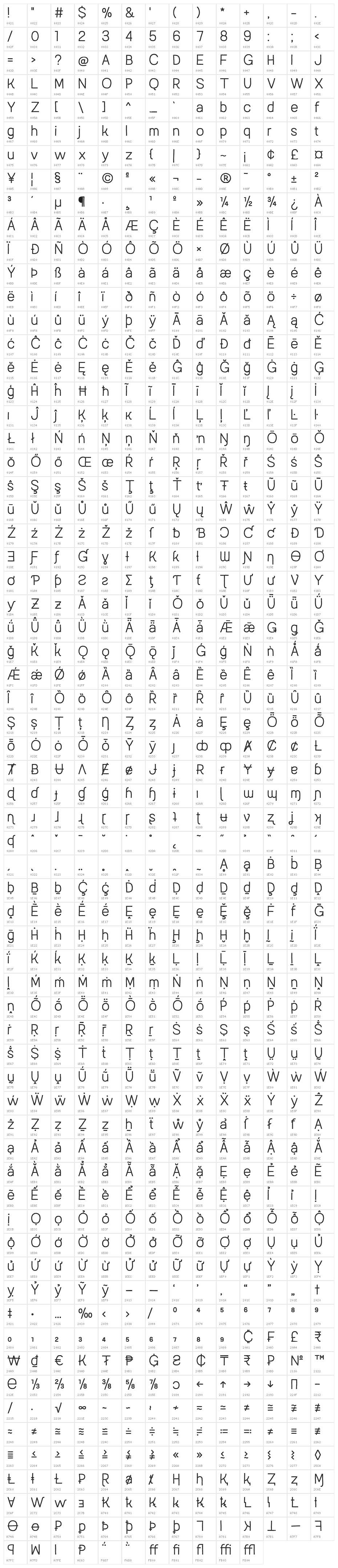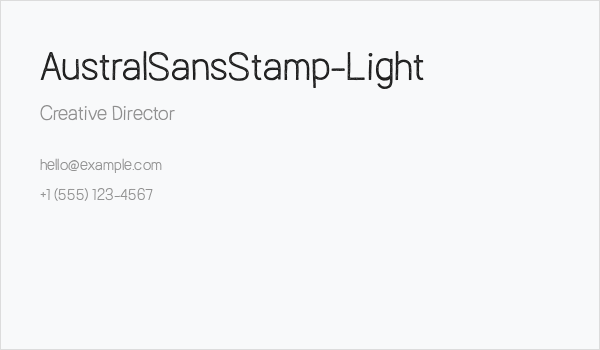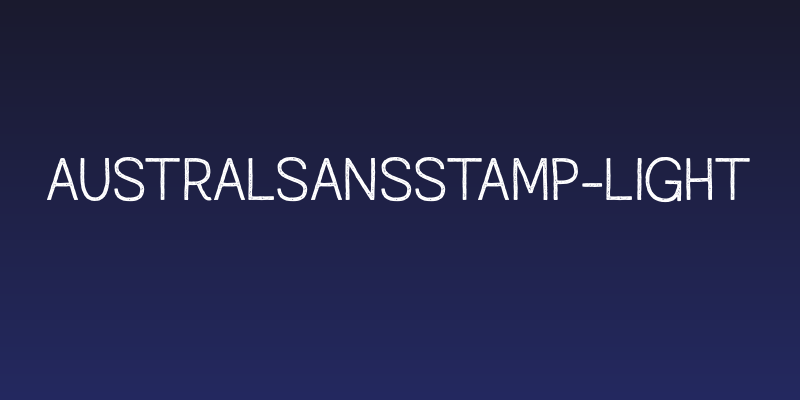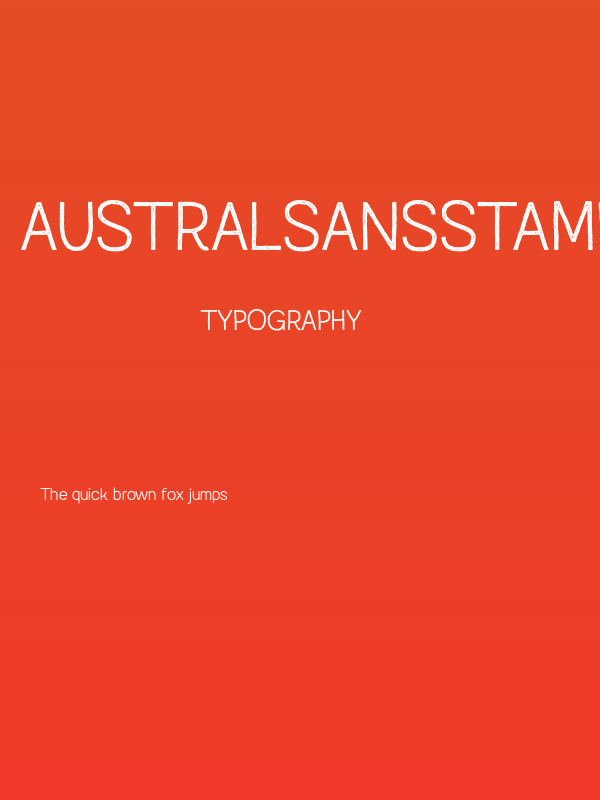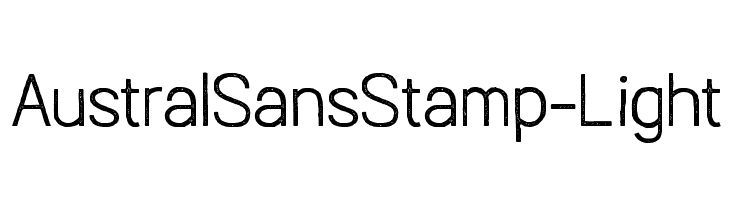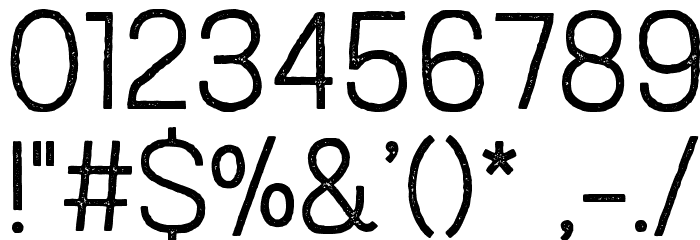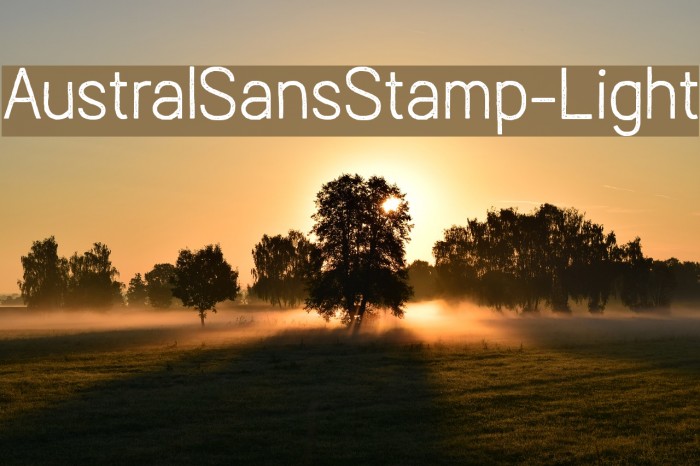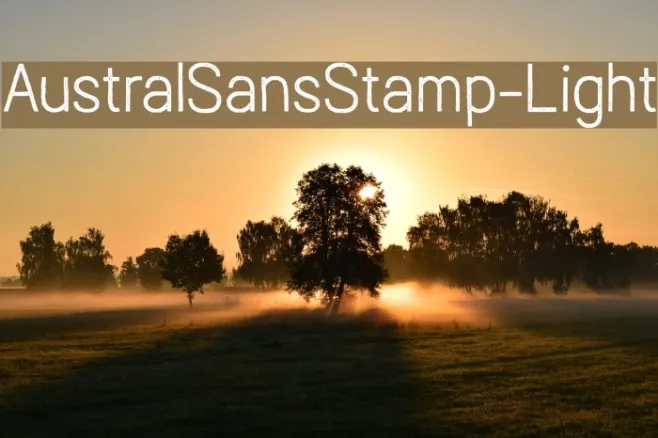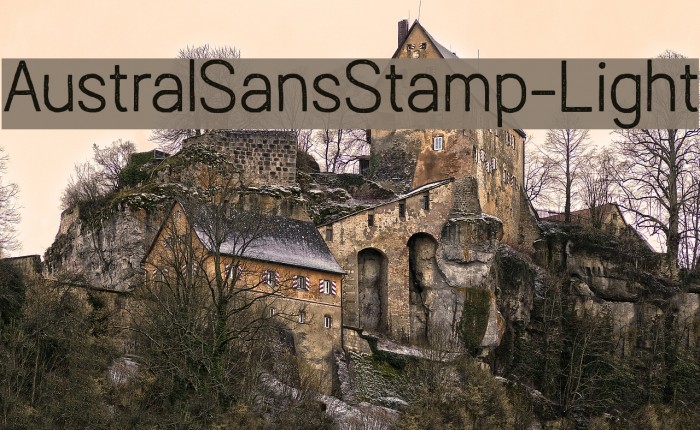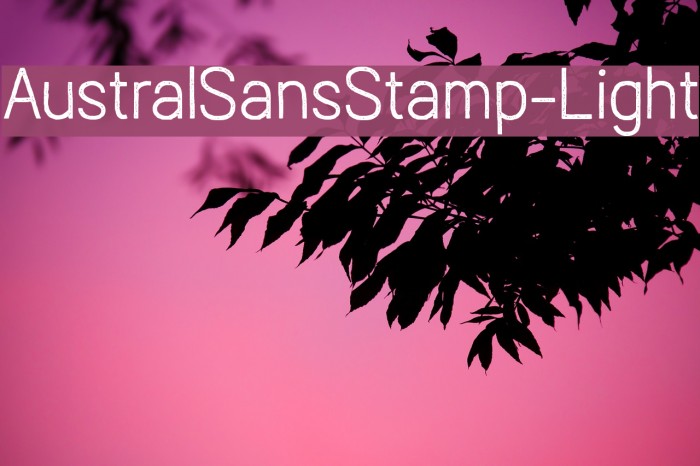
AustralSansStamp-Light Font
AustralSansStamp-Light Description
This font features a distinct, textured appearance reminiscent of a stamped or printed style, giving it a unique, handcrafted feel. The characters are sans-serif, with clean lines and a slightly distressed texture that adds character and depth. The uppercase and lowercase letters maintain a consistent style, with rounded edges and a uniform stroke width. Numbers and special characters follow the same design principles, ensuring a cohesive look across all elements. The font's light weight and subtle texture make it suitable for projects that require a touch of vintage or artisanal flair.